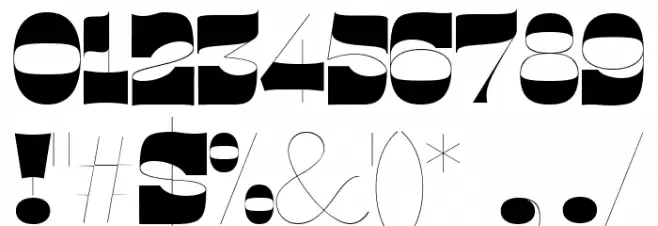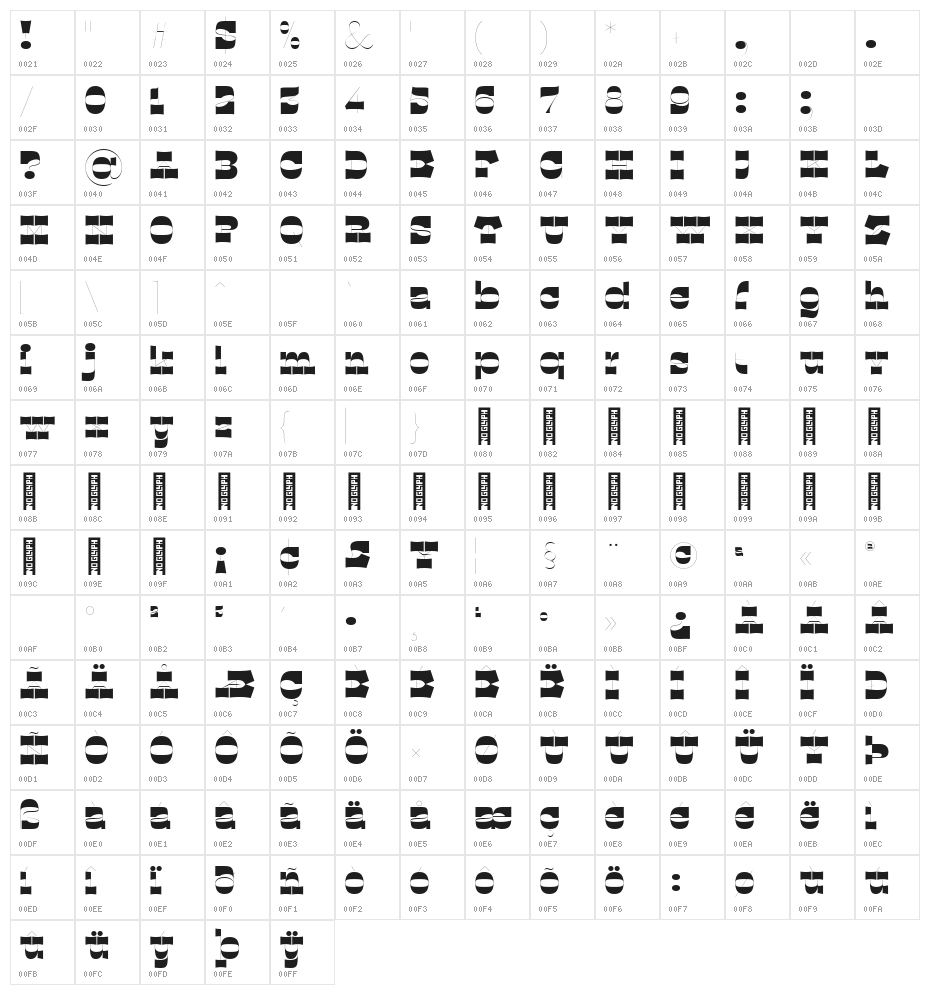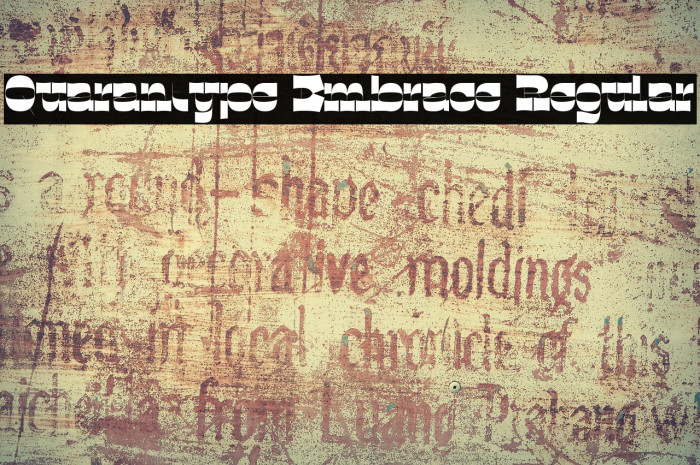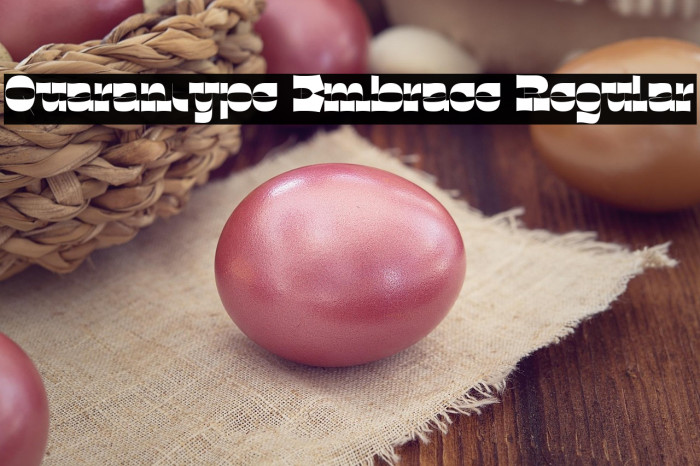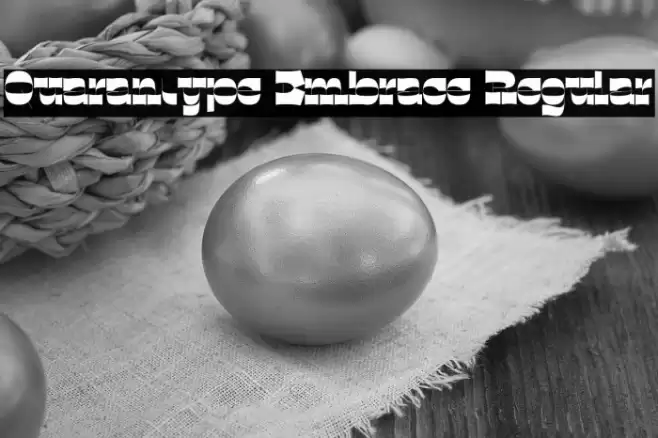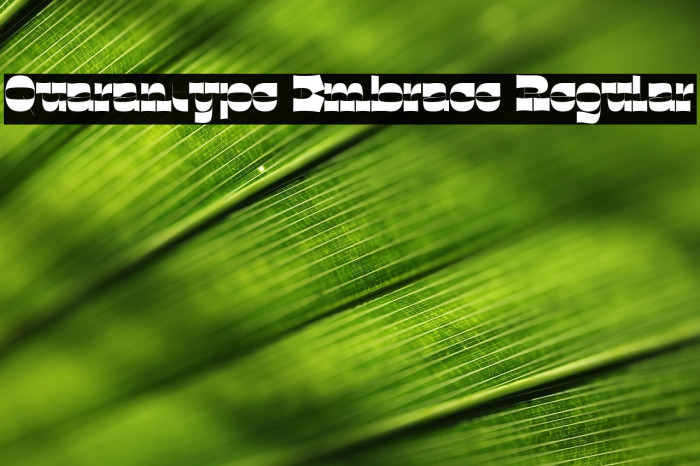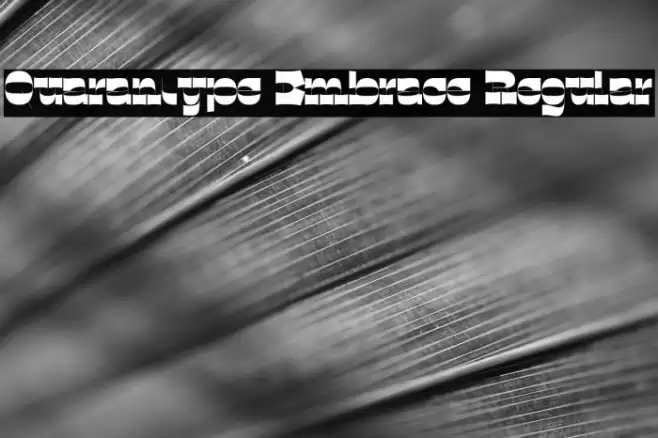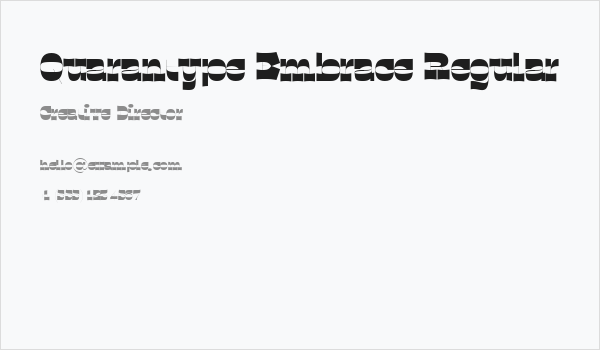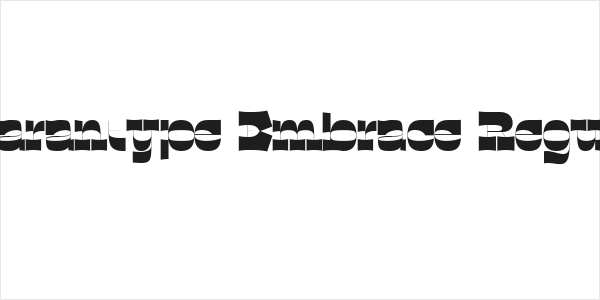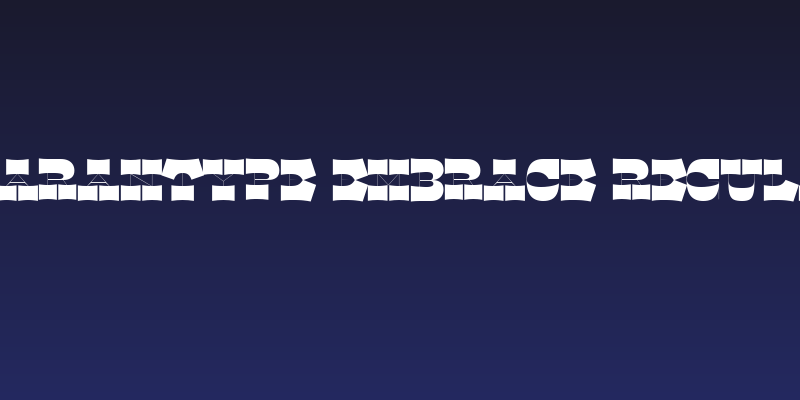
Quarantype Embrace Regular Font
Quarantype Embrace Regular Description
This font features a unique and bold design with a modern, geometric aesthetic. The characters are constructed with thick, solid strokes that create a strong visual impact. Each letterform is composed of distinct shapes and angles, giving it a futuristic and avant-garde feel. The uppercase and lowercase letters maintain a consistent style, with a focus on symmetry and balance. The numerals and special characters follow the same design principles, ensuring a cohesive look across all glyphs. This font is ideal for projects that require a striking and contemporary appearance.